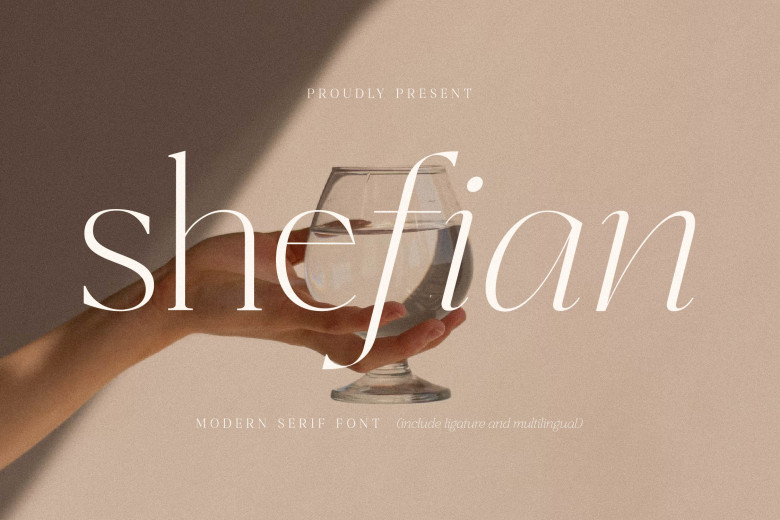
Shefian Font
Shefian features an exquisite serif typeface, perfect for creating luxurious and elegant logos, magazines, clothing lettering and quotes.
Shefian Serif Font